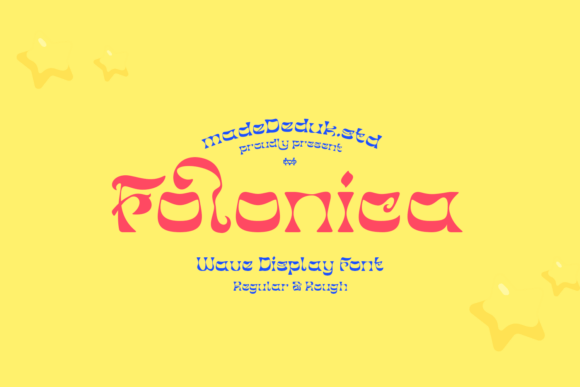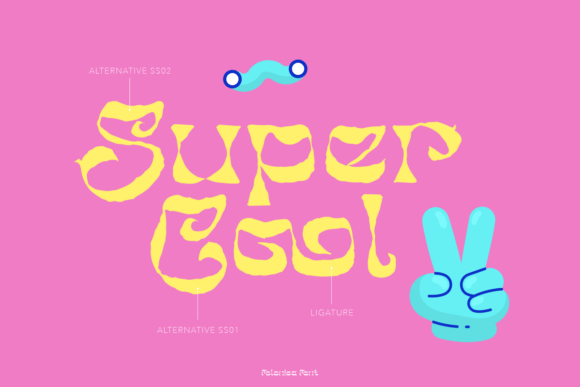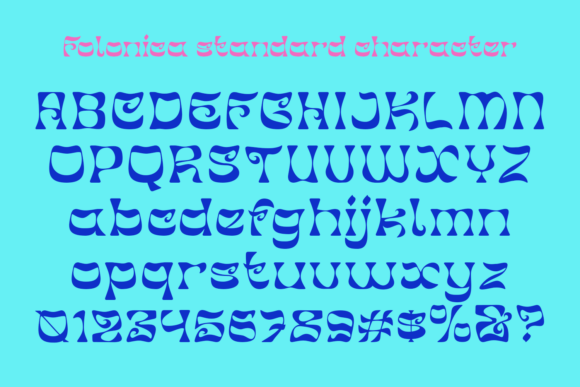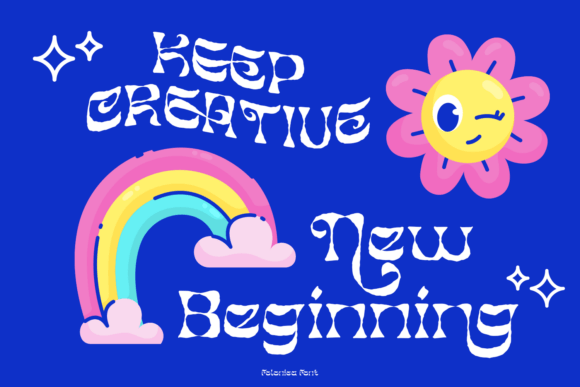
Folonica Font: Groovy Retro Display Font for Logos & Vintage Designs
About the Folonica Font
Discover the charm of Folonica Font. This font is a perfect blend of modern aesthetics and classic appeal. Folonica is a display font classic, vintage look, high contrast that is at home in high-end fashion and cultural environments, you can explore and combine. This font is perfect for many display purposes in your product design if you want a vintage and classic style. Such as book covers, product labels, logos, badges, drink bottles, tattoo shops, coffee shops, fashion products, wedding invitations, etc.
Folonica’s high contrast and vintage styling make it ideal for headlines, logos, and short text blocks within branding materials, posters, and packaging. It excels in creating a strong visual impact but is less suitable for body text or UI elements due to its low readability at smaller sizes.
Its classic elegance lends itself well to projects with a sophisticated or heritage feel, such as high-end fashion, artisanal food and beverage brands, or boutique hotels. The font projects a sense of boldness and timeless quality.
Pairing Folonica with a clean sans-serif like Futura for body copy or a delicate script font like Great Vibes for supplementary text provides a balanced contrast, complementing its vintage appeal without overwhelming the design. For a more modern feel, a geometric sans-serif such as Montserrat would create a stylish juxtaposition.
Folonica Font Usage Examples
Folonica Font Example